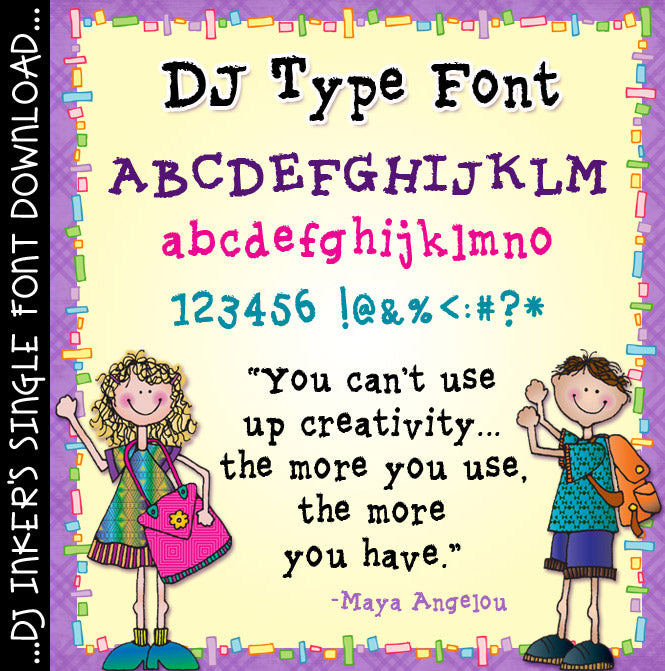
DJ Type Font Download
With our DJ Type font, you get bold, bouncy typewriter lettering that adds texture and personality to any project... at home, school or office! Try a DJ font with no risk and see why so many people are hooked on our FONTastic fonts!